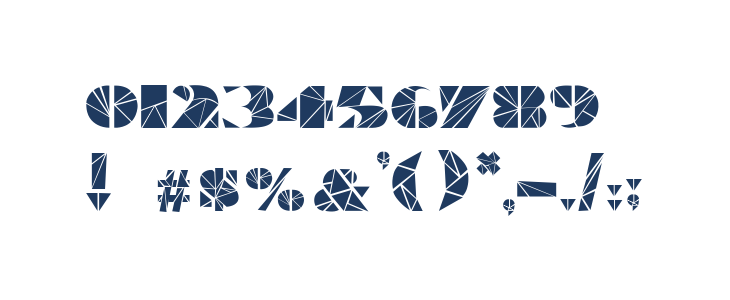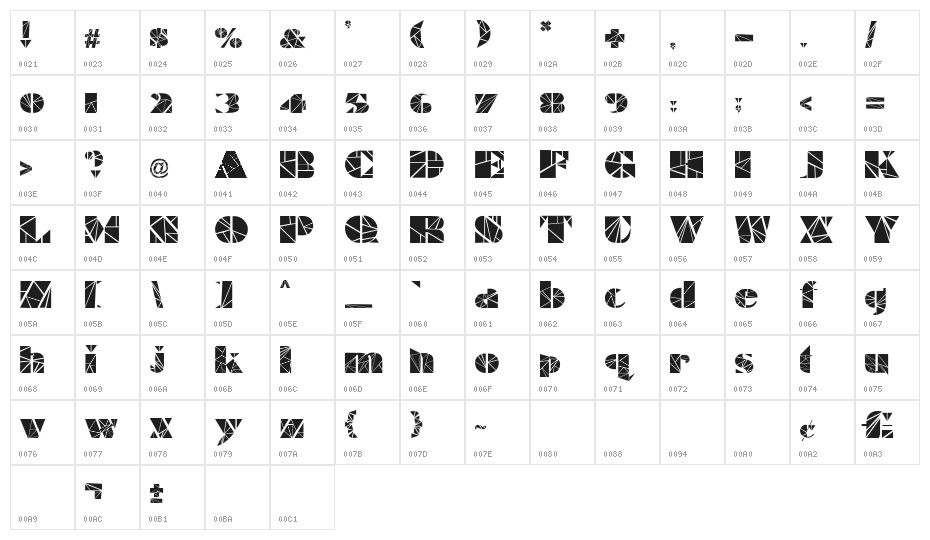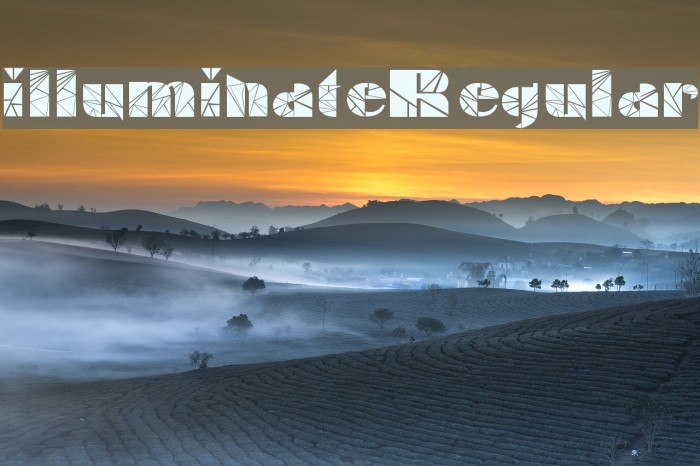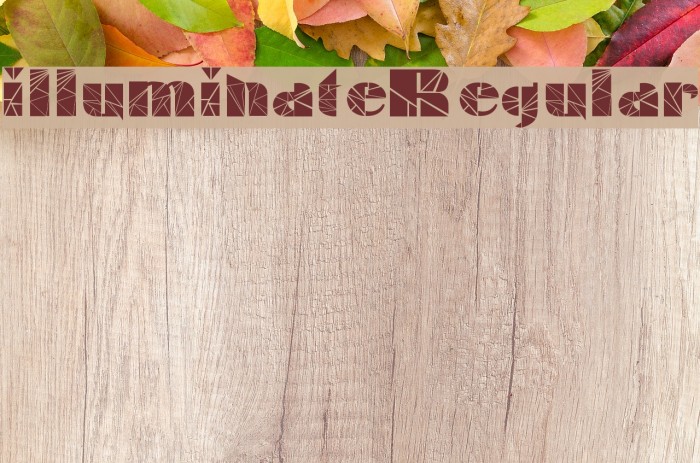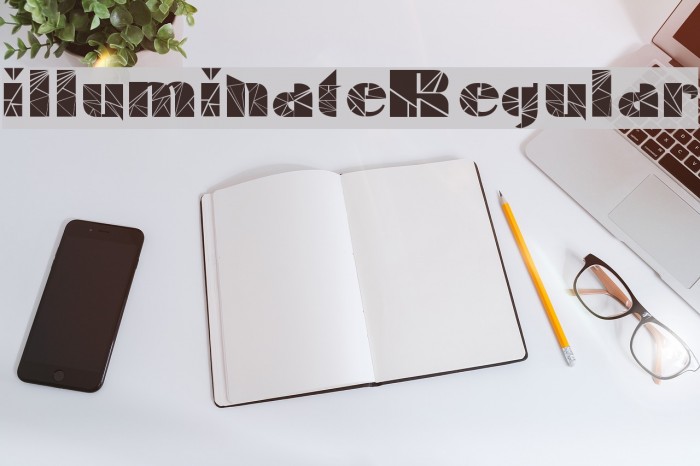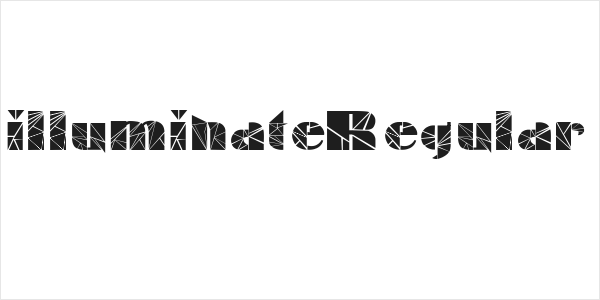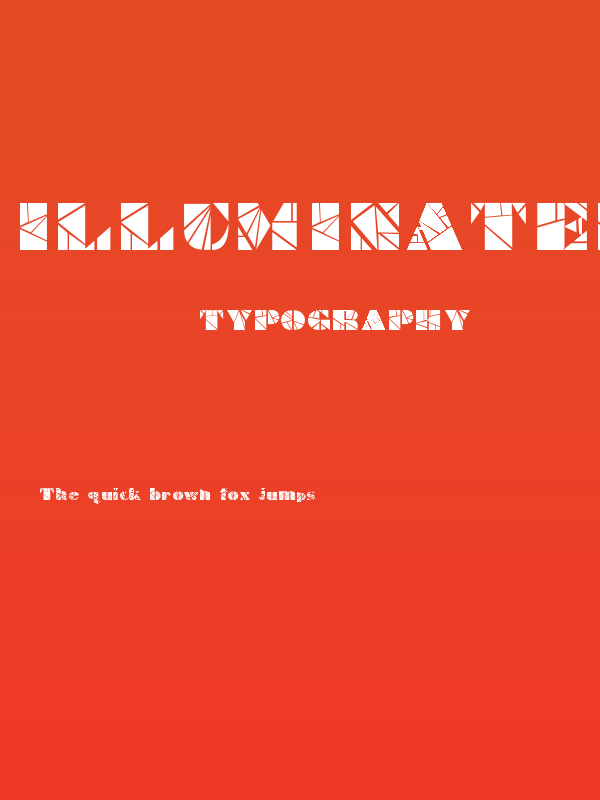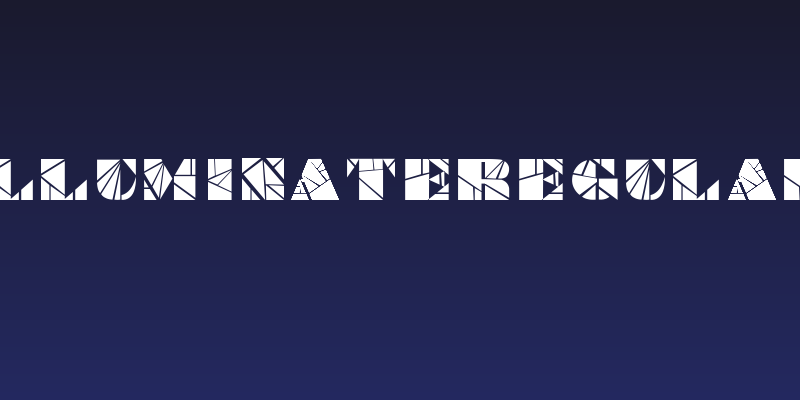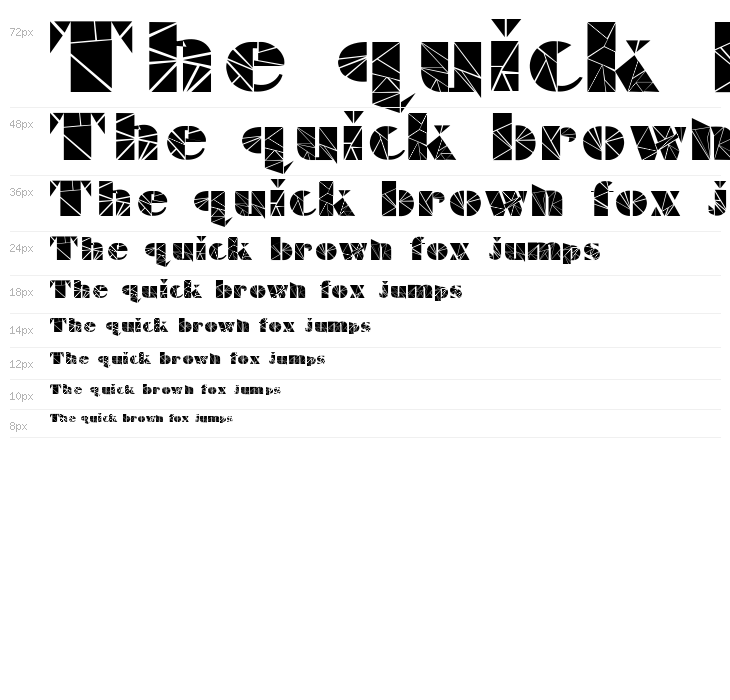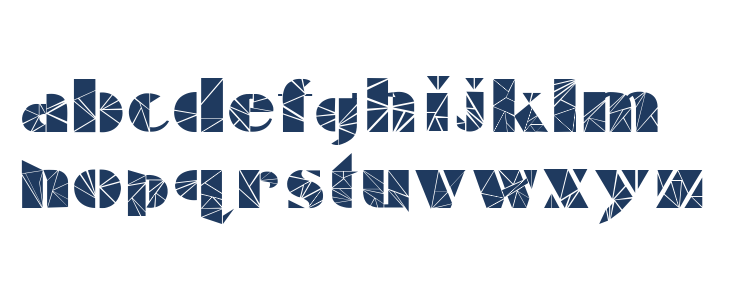
illuminateRegular Font
illuminateRegular Description
This font features a bold and geometric design with intricate patterns within each character. The letters are constructed with a series of angular lines and shapes, creating a fragmented, mosaic-like appearance. The style is highly decorative, making it stand out with its unique, artistic flair. Each character is filled with a complex network of lines, giving it a dynamic and modern aesthetic. The font maintains a consistent weight throughout, with a strong presence that commands attention.
| Overall Style | Modern, Decorative |
| Proposed Projects | Ideal for modern art projects, branding for creative industries, or eye-catching headlines. |